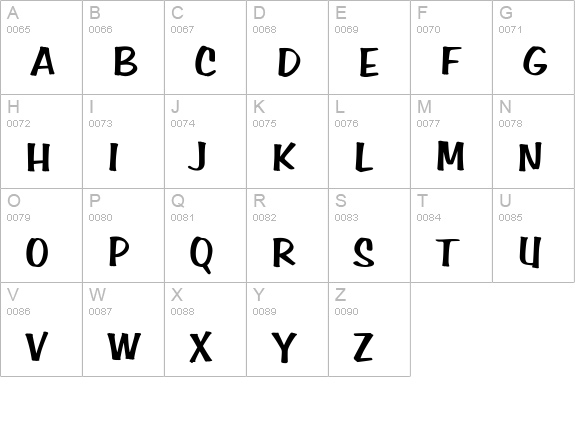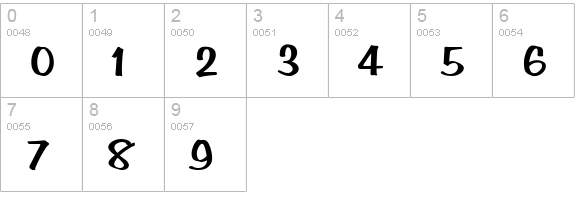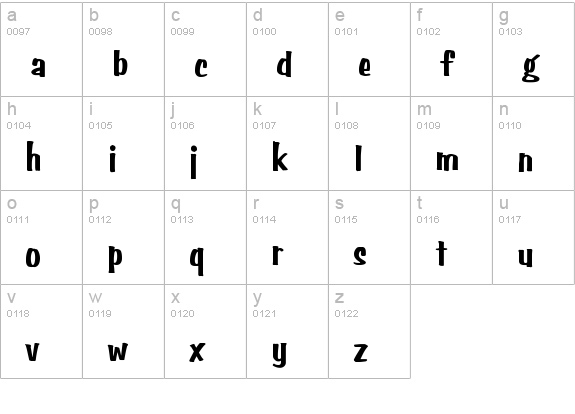
CgBenguiatFrisky-Bold Font Details
CgBenguiatFrisky-Bold is a strong, high-contrast variant in the CgBenguiatFrisky typeface family \xE2\x80\x94 well suited to headlines, attention-grabbing titles, and strong calls-to-action.
CgBenguiatFrisky-Bold is a bold and dynamic font that exudes confidence and creativity. Its playful yet sturdy letterforms make it perfect for eye-catching headlines, branding, and design projects that require a touch of personality. This font is free to download at FontsMarket.com, making it easily accessible for designers looking to add a bold and frisky touch to their work. With its unique style and versatility, CgBenguiatFrisky-Bold is sure to make a statement in any project.